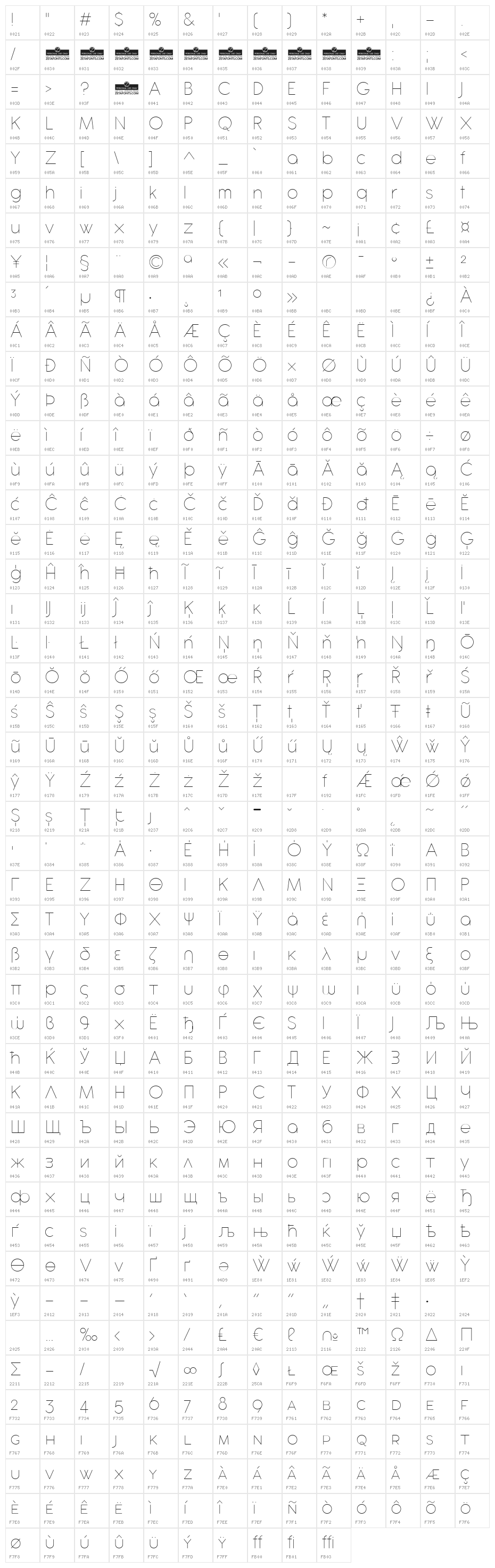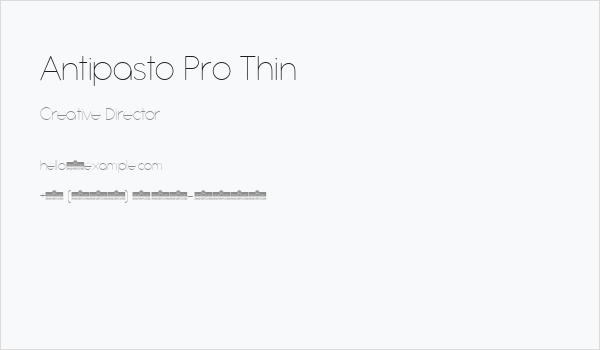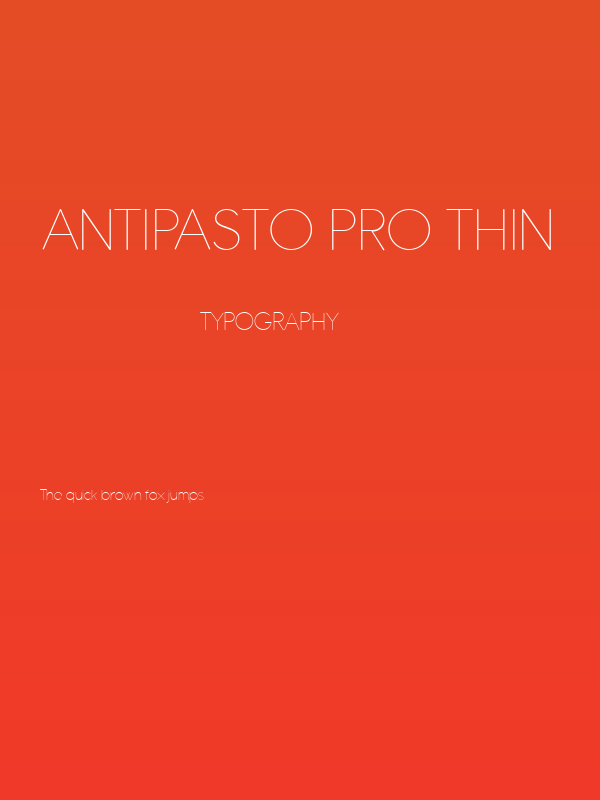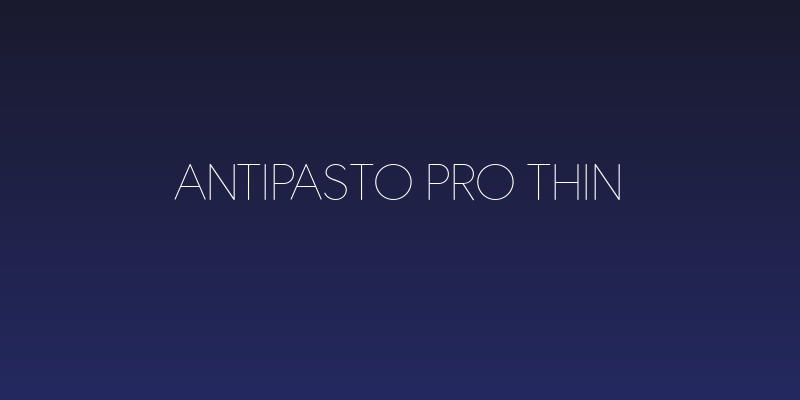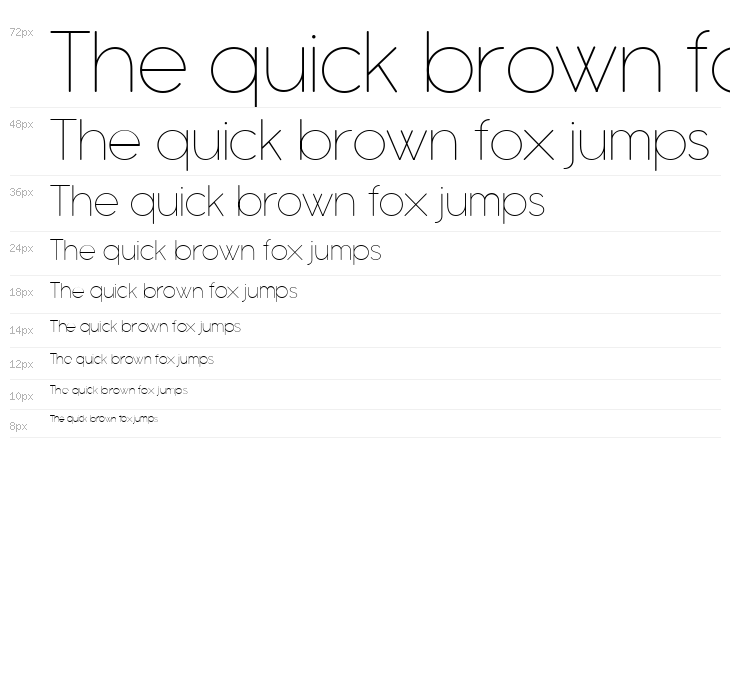
Antipasto Pro Thin Font
Antipasto Pro Thin Description
This font exhibits a sleek and modern aesthetic with its thin, clean lines and geometric shapes. The uppercase and lowercase letters maintain a consistent stroke width, contributing to a minimalist and elegant appearance. The characters are well-proportioned, with a slight roundness that adds a touch of softness to the overall design. The numerals and special characters are crafted with the same attention to detail, ensuring uniformity across all glyphs. This font's simplicity and clarity make it highly legible, even at smaller sizes, while its contemporary style lends itself well to a variety of design applications.